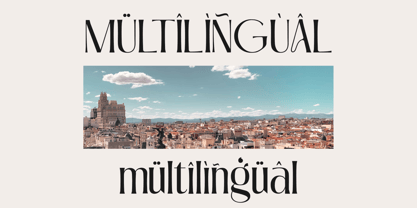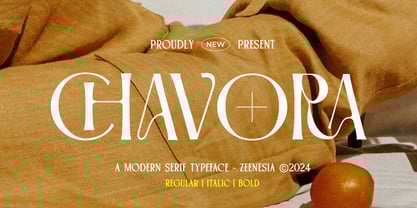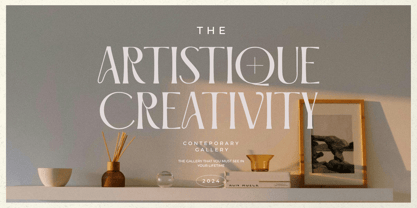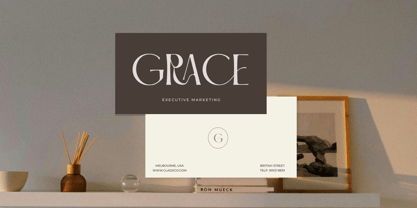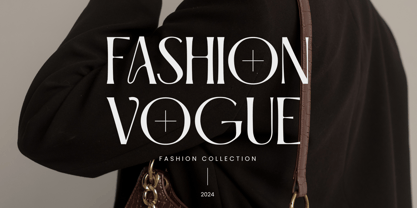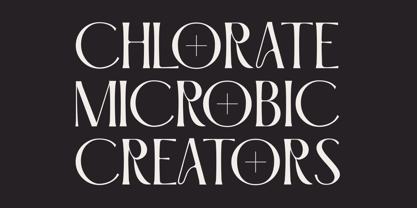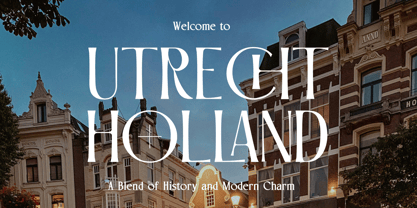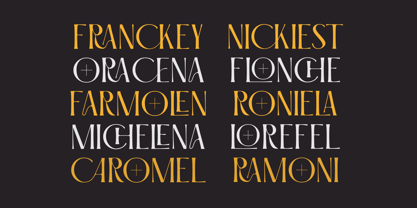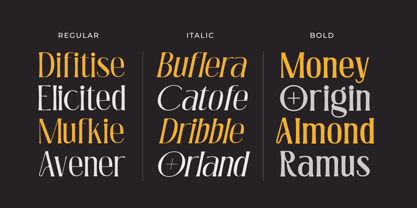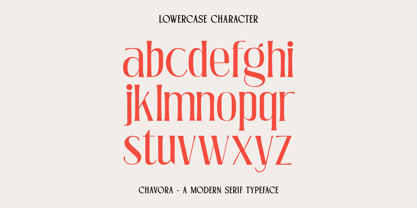
Chavora
by Zeenesia Studio
The Chavora Font Family was designed by Doni Purwoko and published by Zeenesia Studio. Chavora contains 3 styles and family package options.
Chavora is a distinctive serif font that embodies strength and individuality. Available in three styles Regular, Italic, and Bold. Chavora balances elegance and modernity, making it a perfect choice for impactful headlines, sophisticated branding, and editorial designs. Its finely crafted serifs and dynamic shapes add a touch of refinement while maintaining versatility across various creative applications. Whether used for digital projects or printed works, Chavora ensures a captivating visual impression.